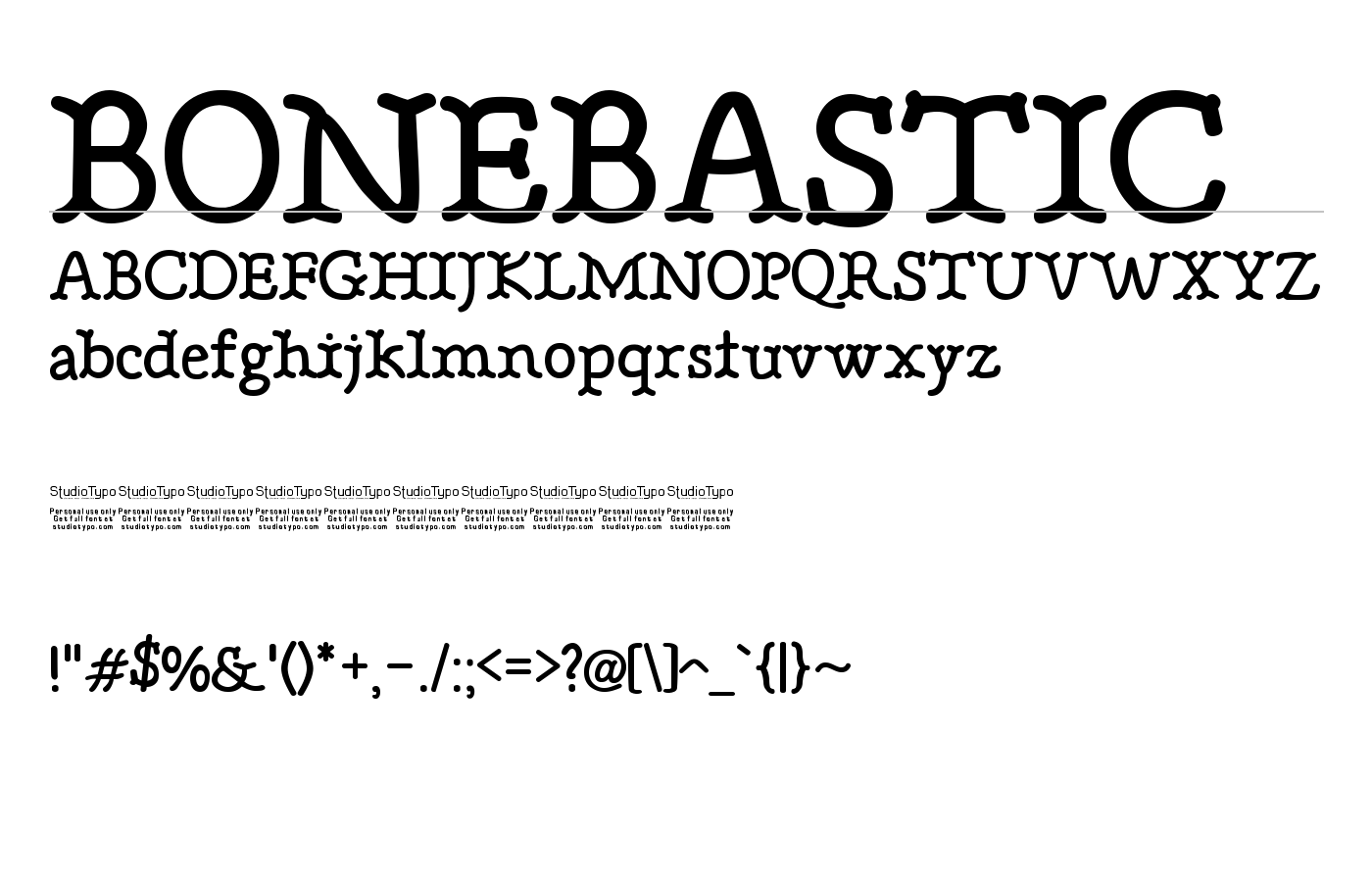
Bonebastic is a playful serif font with a medium weight and a slightly condensed feel, featuring rounded, organic shapes reminiscent of bones. Its quirky letterforms and subtle irregularities give it a friendly, informal character, making it ideal for creative, fun projects like children’s books, Halloween themes, and unique branding. This font stands out in headlines and logos where a touch of whimsy and personality is desired.
BONEBASTIC Font
About BONEBASTIC Font
| Font family | BONEBASTIC Font |
| Designer | MEHMET ABACI |